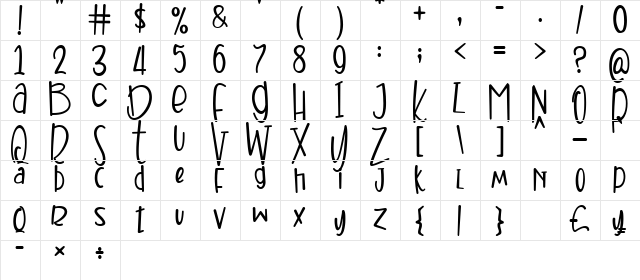
Sweetfy Regular
Design Context for Sweetfy Typeface
Sweetfy is a composed and adaptable typeface that performs quietly and consistently across a wide range of design contexts.